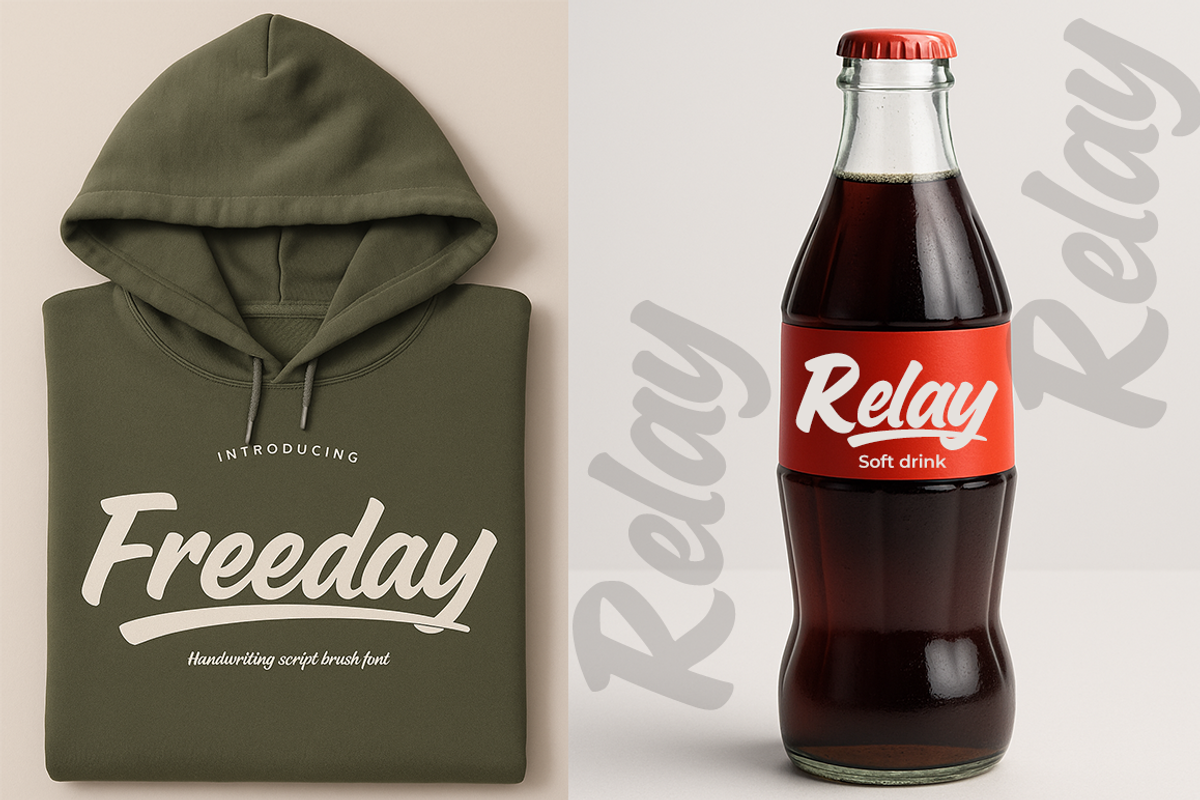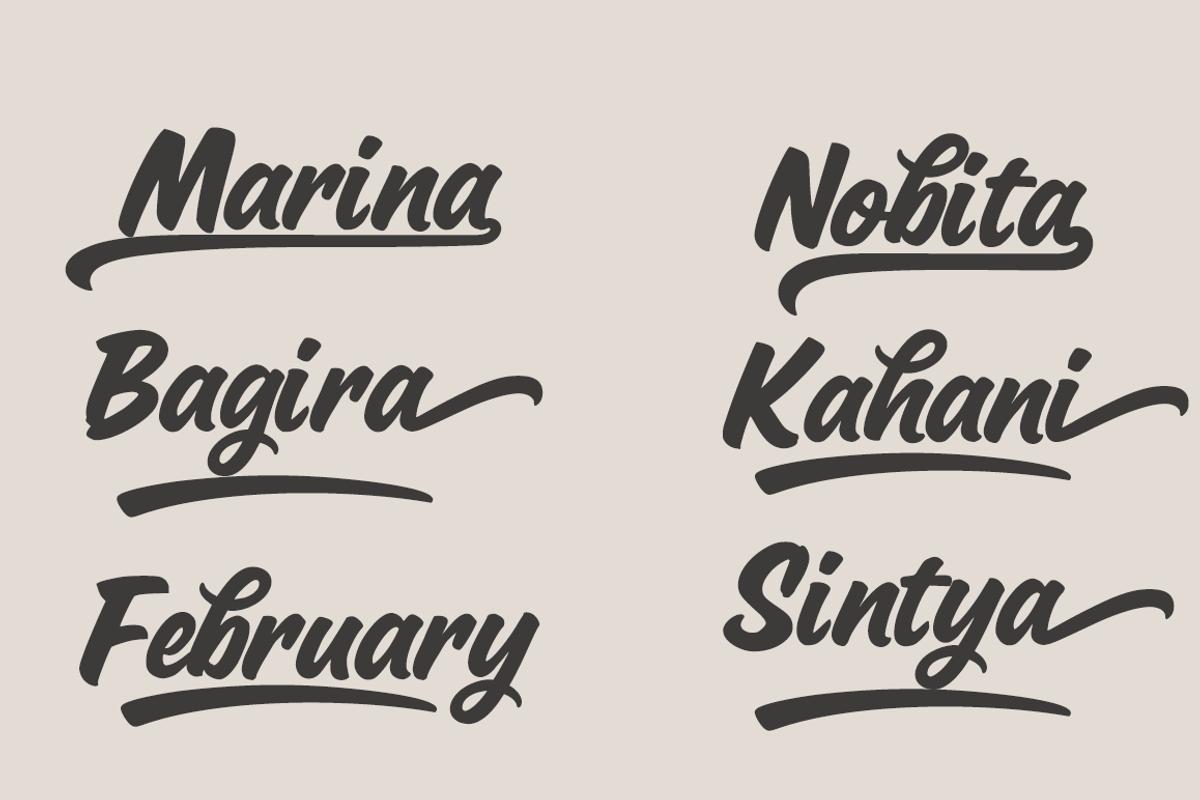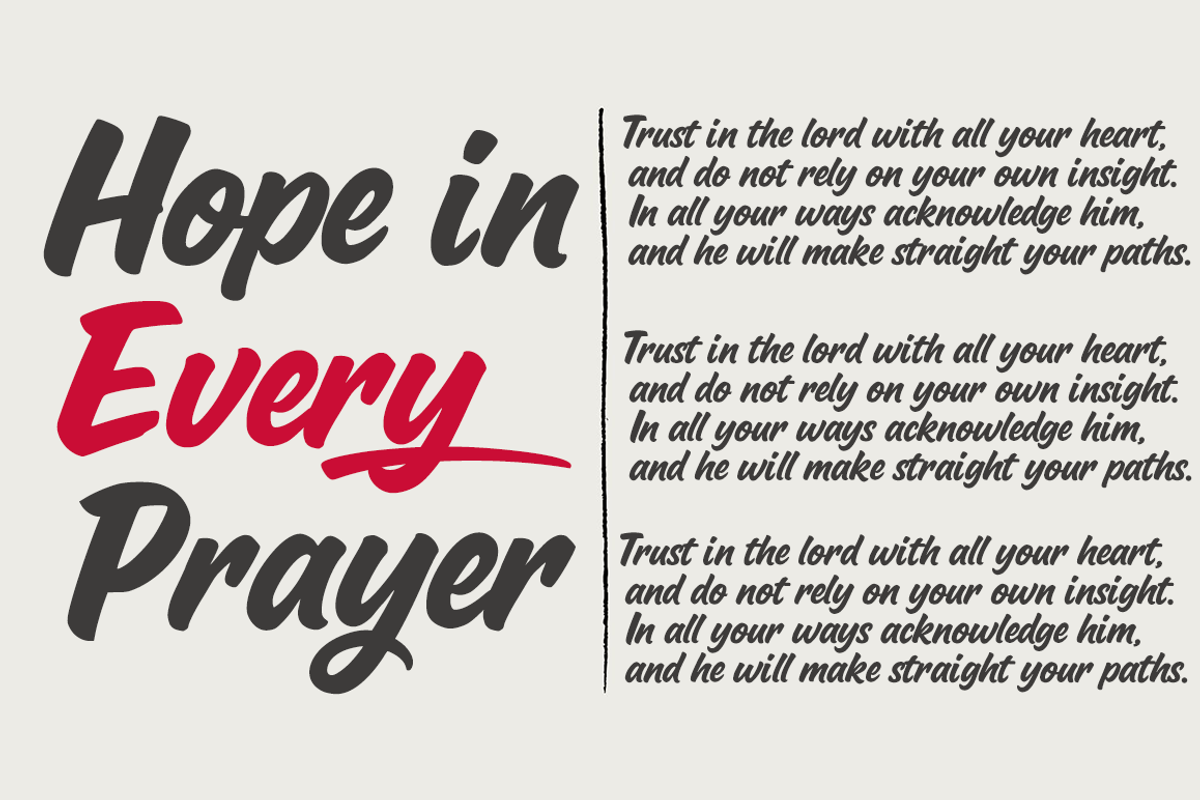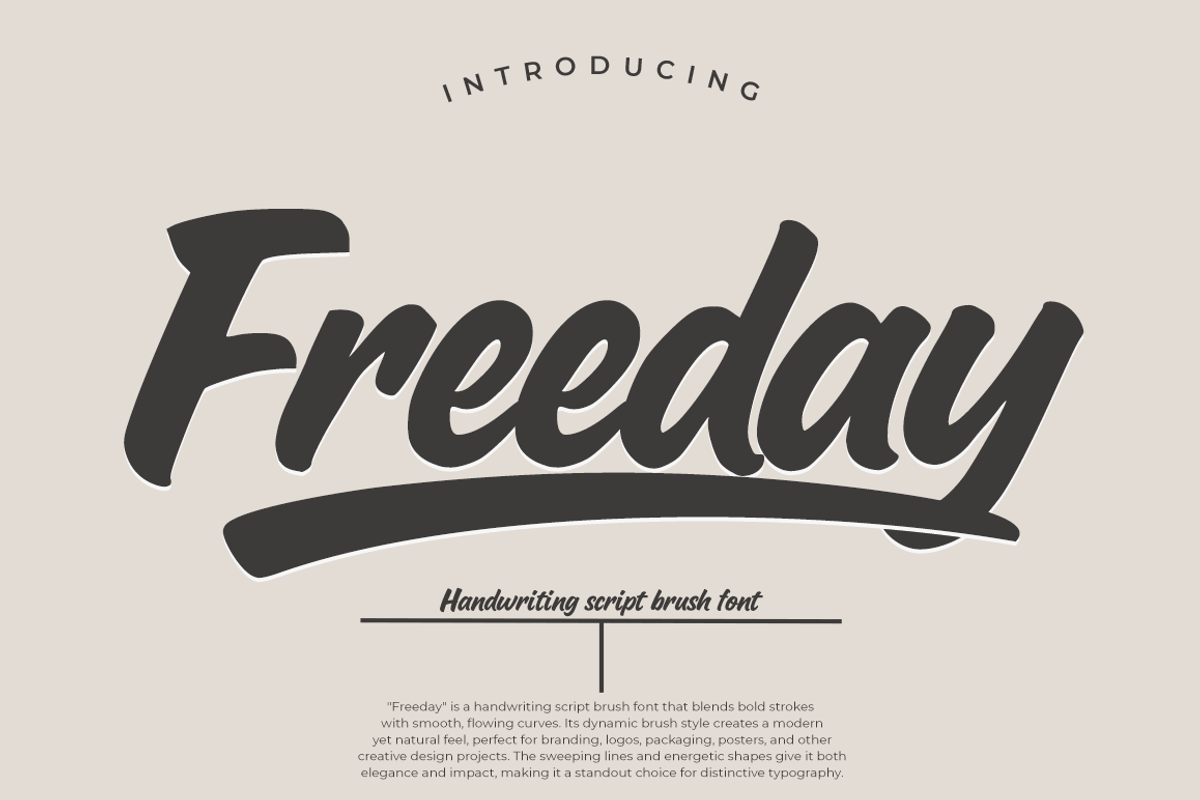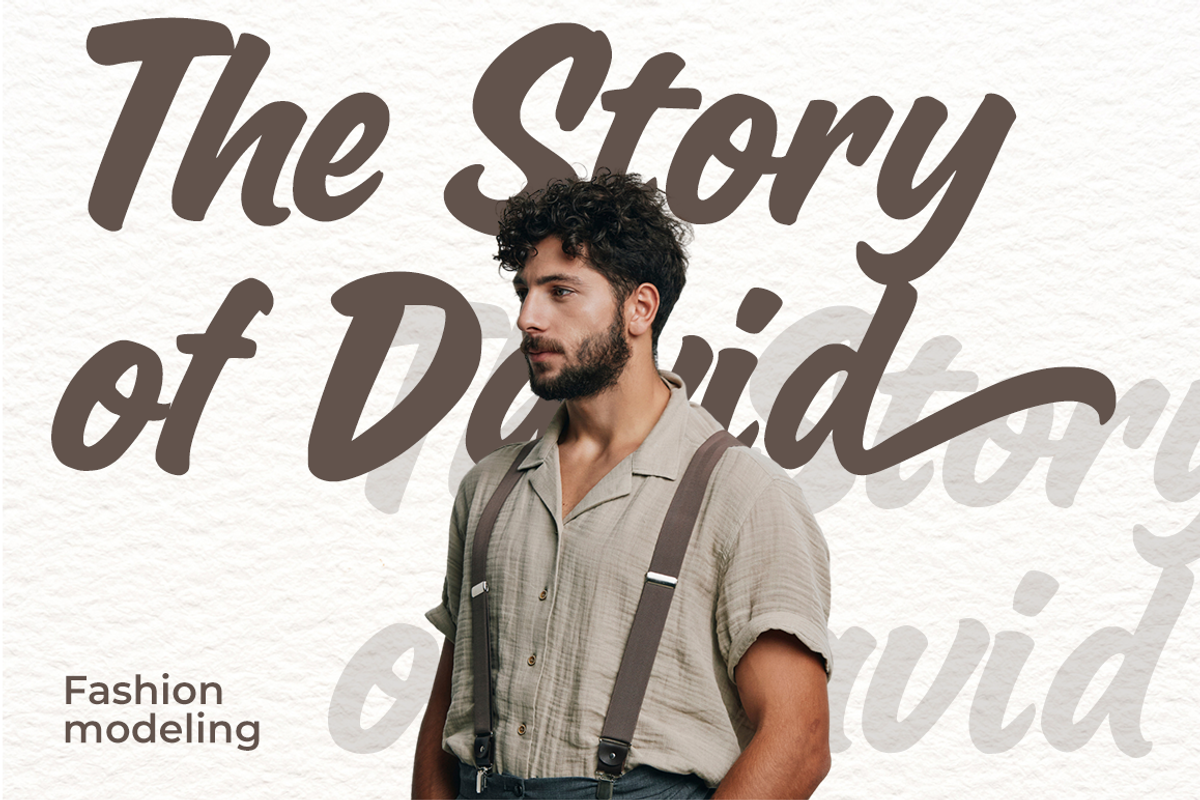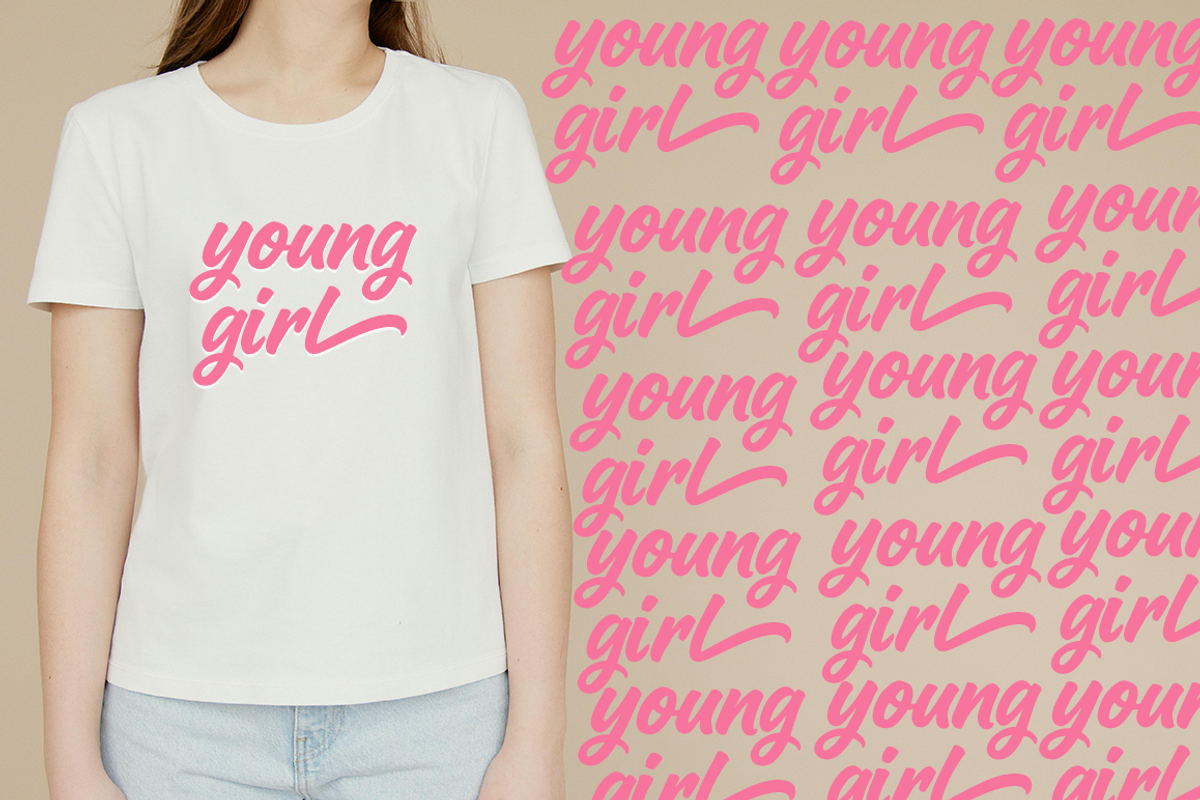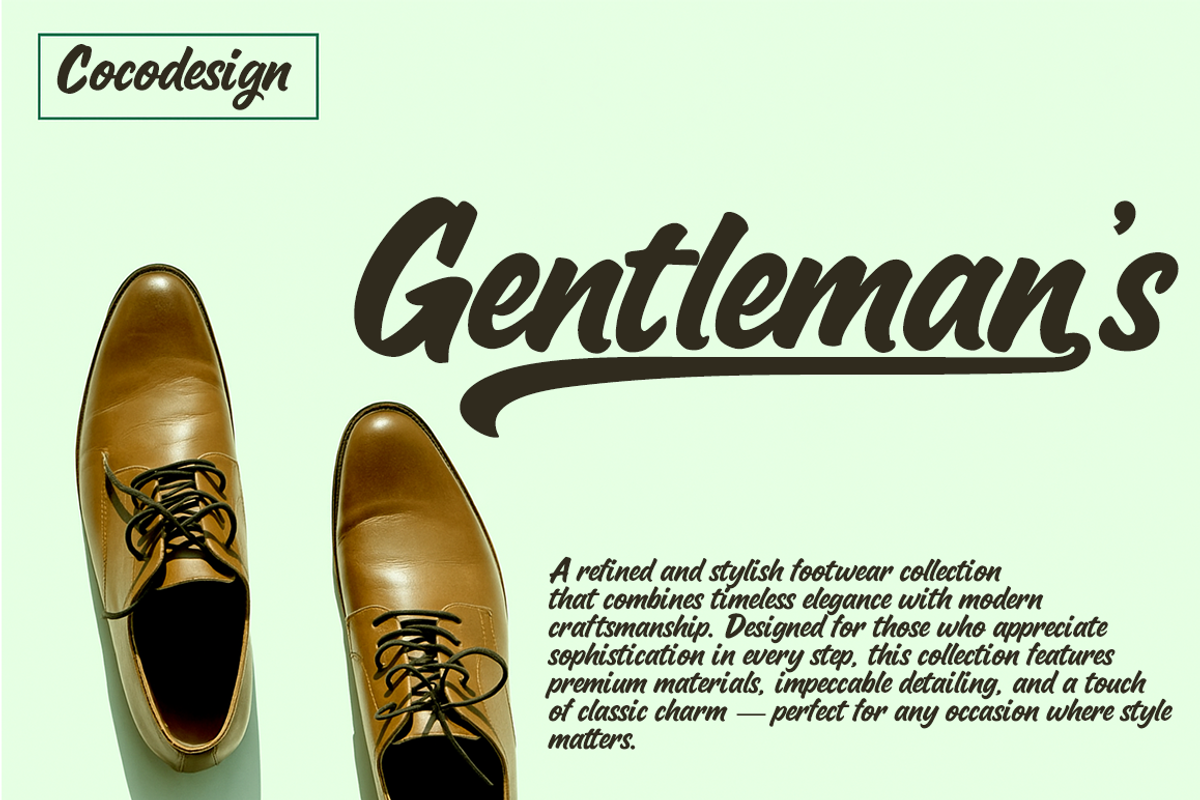
Freeday
Freeday is a handwriting script brush font that combines bold strokes with smooth, flowing curves. Its dynamic brush style delivers a modern yet natural look, making it ideal for branding, logos, packaging, posters, and various creative design projects. The sweeping lines and energetic forms bring both elegance and visual impact, making it a standout choice for distinctive typography.